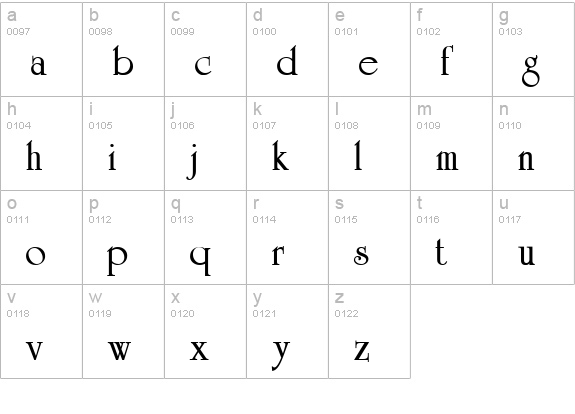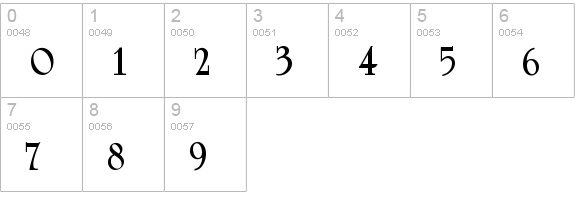
Celtic MN Bold is a strong, high-contrast variant in the Celtic typeface family \xE2\x80\x94 well suited to headlines, attention-grabbing titles, and strong calls-to-action.
Celtic MN Bold font is a stunning display typeface that embodies the intricate beauty of Celtic design elements. Its bold and striking appearance exudes a sense of strength and tradition, making it perfect for projects that require a touch of ancient charm. The ornate details and intricate swirls of this font capture the essence of Celtic artistry, adding a unique flair to any design. What makes Celtic MN Bold font even more appealing is that it is available for free download at FontsMarket.com. This means you can easily access this beautiful typeface to enhance your creative projects without any cost. Whether you're working on branding, posters, invitations, or any other design endeavor, Celtic MN Bold font is sure to make a bold statement and leave a lasting impression. Add a touch of Celtic magic to your work with this exquisite font today!